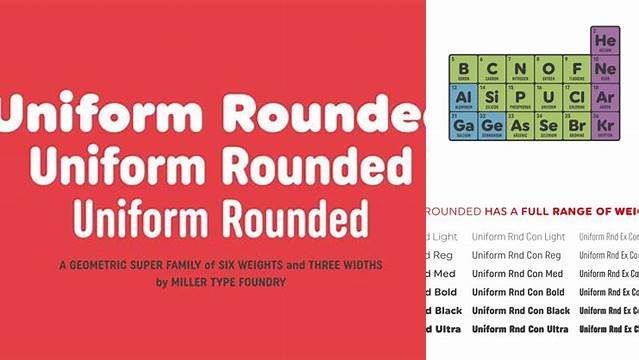
Uniform Rounded Free Font: A Designer's Guide
Are you looking for a modern and versatile font that's both aesthetically pleasing and freely available? Look no further! In this comprehensive guide, we'll dive deep into the world of uniform rounded free fonts, exploring their characteristics, best uses, and where you can find them. We'll cover everything you need to know to make an informed decision and elevate your design projects. Guys, get ready to explore the fantastic world of typography!
What is a Uniform Rounded Free Font?
Let's start with the basics. What exactly is a uniform rounded free font? Well, the key characteristics lie in the name itself. "Uniform" refers to the consistent stroke weight and overall design, creating a sense of balance and harmony. "Rounded" indicates that the corners and edges of the letterforms are smooth and curved, rather than sharp and angular. This gives the font a softer, friendlier, and more approachable feel. And of course, "free" means that you can use the font without having to pay any licensing fees, making it a fantastic resource for designers on a budget or those just starting out.
These types of fonts often have a geometric structure, meaning they are built upon simple shapes like circles and squares. This underlying geometry contributes to their clean and modern aesthetic. The rounded terminals further enhance this by adding a touch of warmth and accessibility. Think about logos, websites, and even apps – you'll often see uniform rounded fonts being used to convey a sense of trust and innovation.
The beauty of uniform rounded fonts lies in their versatility. They can be used for a wide range of applications, from headlines and body text to logos and branding materials. Their clean and legible nature makes them ideal for both print and digital environments. Imagine using a beautiful uniform rounded font for your website's navigation menu or for the headings in your next presentation. The possibilities are endless!
Furthermore, the consistent stroke weight ensures readability across different sizes and resolutions. This is crucial in today's multi-device world, where your designs need to look just as good on a large desktop monitor as they do on a small smartphone screen. A well-designed uniform rounded font will maintain its clarity and visual appeal regardless of the display size.
So, in a nutshell, a uniform rounded free font is a typeface characterized by its consistent stroke weight, rounded corners, geometric structure, and free availability. These fonts are a valuable asset for any designer looking to create modern, approachable, and visually appealing designs.
Key Characteristics of Uniform Rounded Fonts
Delving deeper, let's break down the specific characteristics that define these fonts. Understanding these elements will help you appreciate their design and choose the right font for your project. The key characteristics of uniform rounded fonts include:
Consistent Stroke Weight: This is perhaps the most defining feature. The thickness of the lines that form the letters remains uniform throughout the entire font family. This consistency creates a sense of visual harmony and balance, making the font easy on the eyes and highly legible. Think of it as the backbone of the font's structure, ensuring a clean and even appearance.
Rounded Terminals: The rounded corners and edges are what give these fonts their soft and friendly feel. Unlike sharp, angular fonts that can sometimes appear harsh or formal, rounded fonts exude warmth and approachability. This makes them particularly well-suited for designs that aim to create a welcoming and user-friendly experience. Consider the difference between a sharp, serif font and a rounded sans-serif font – the emotional impact is significantly different.
Geometric Structure: Many uniform rounded fonts are based on geometric shapes like circles, squares, and triangles. This underlying structure contributes to their clean, modern, and minimalist aesthetic. The geometric foundation provides a framework for the letterforms, resulting in a sense of order and precision. This is why these fonts often feel so contemporary and visually appealing.
Sans-Serif Design: The vast majority of uniform rounded fonts are sans-serif, meaning they lack the small decorative strokes (serifs) that are found at the ends of letterforms in fonts like Times New Roman. The absence of serifs further enhances the clean and modern look, making these fonts ideal for digital environments and contemporary designs. Sans-serif fonts generally offer better readability on screens, making them a popular choice for websites and apps.
Versatility: These fonts are incredibly versatile and can be used in a wide range of applications. From headlines and body text to logos and branding materials, they adapt seamlessly to different design contexts. Their clean and legible nature makes them suitable for both print and digital media. This versatility is a major advantage, as you can use a single font family across multiple projects, maintaining a consistent visual identity.
Cabin: Cabin is a humanist sans-serif font with a slightly condensed design and rounded corners. It's a versatile typeface that works well in both headlines and body text. Available on Google Fonts, Cabin offers a clean and modern aesthetic with a touch of warmth. Its slightly condensed form makes it efficient in terms of space, making it a good choice for designs where space is limited.
Open Sans: While not strictly a